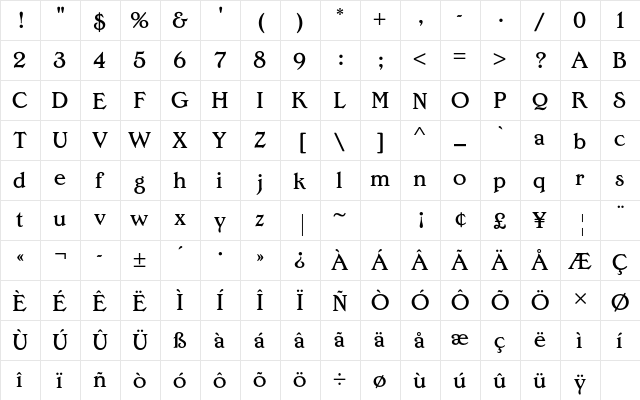
Edwardian Medium Std Regular
| Designer | Colin Brignall |
Design Context for Edwardian Medium Std Typeface
Edwardian Medium Std offers clean, dependable letterforms without strong stylistic allegiance, making it a practical choice for designers who need flexibility.